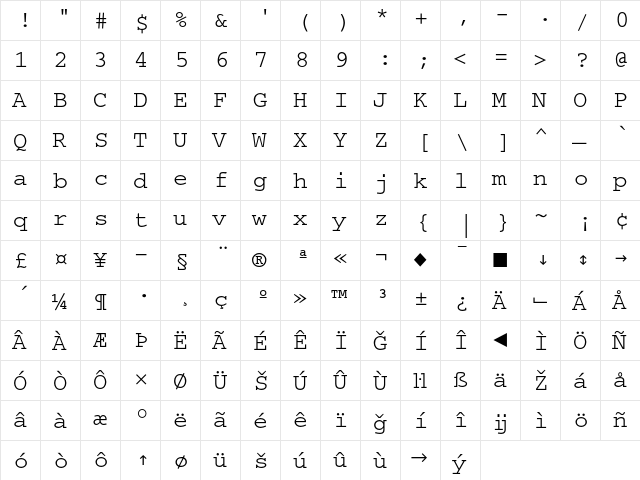
Courier Regular Font Preview
Courier Regular
Courier Regular Font Details
Design Context for Courier Typeface
Courier uses fixed-width spacing throughout, giving it the structured, systematic character associated with coding environments and technical documentation.
Pro Tip: Pair Courier with a proportional sans for UI contexts where code-style labels and regular body copy need to coexist.